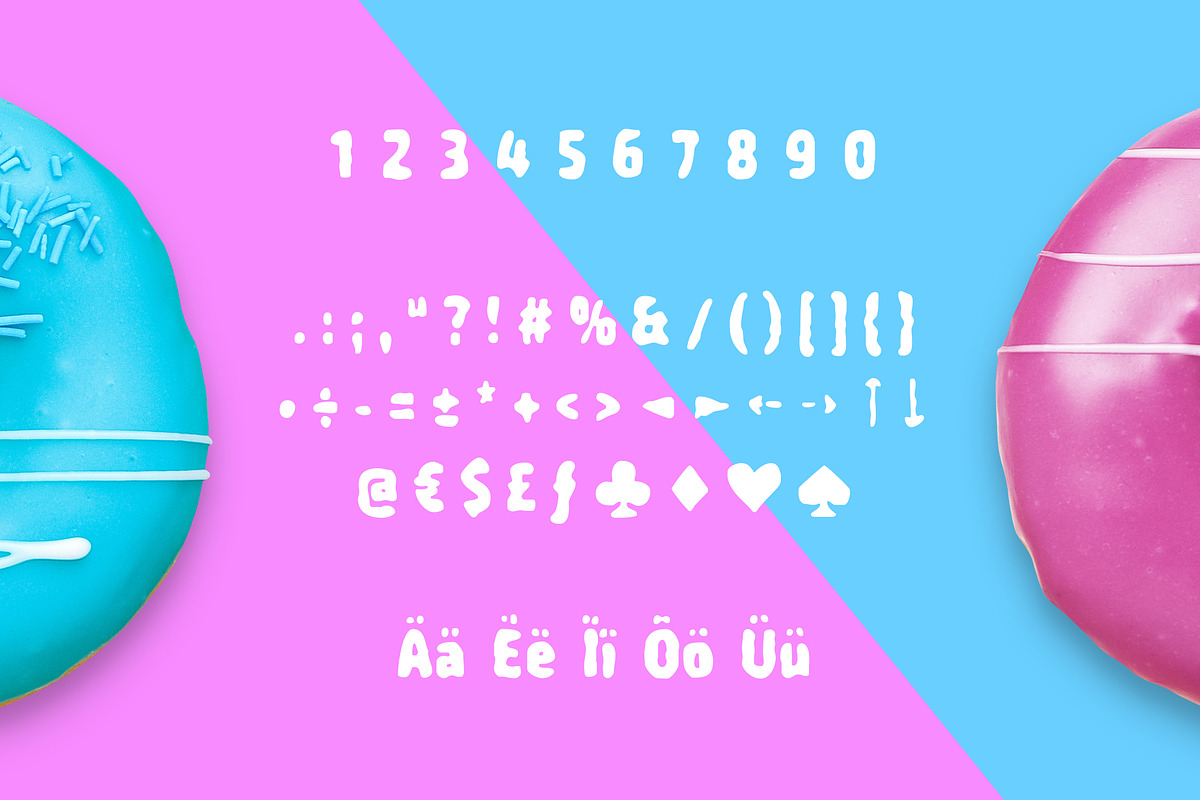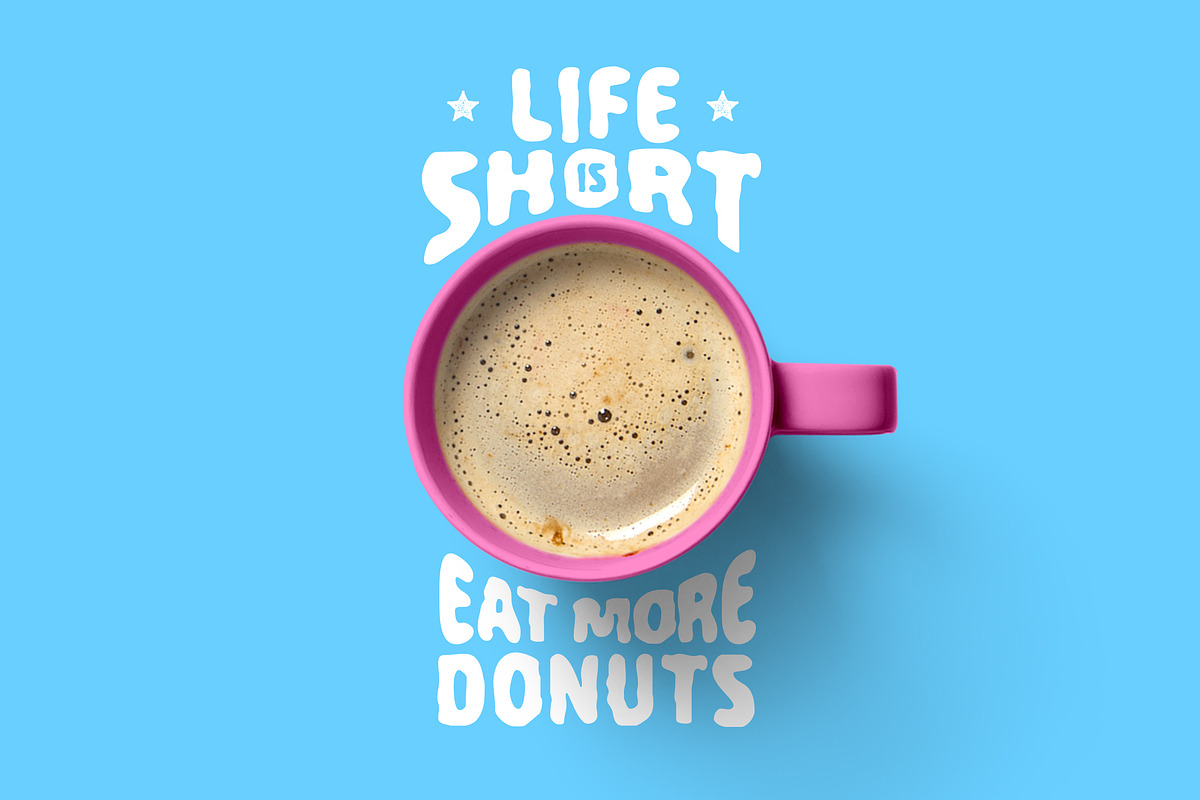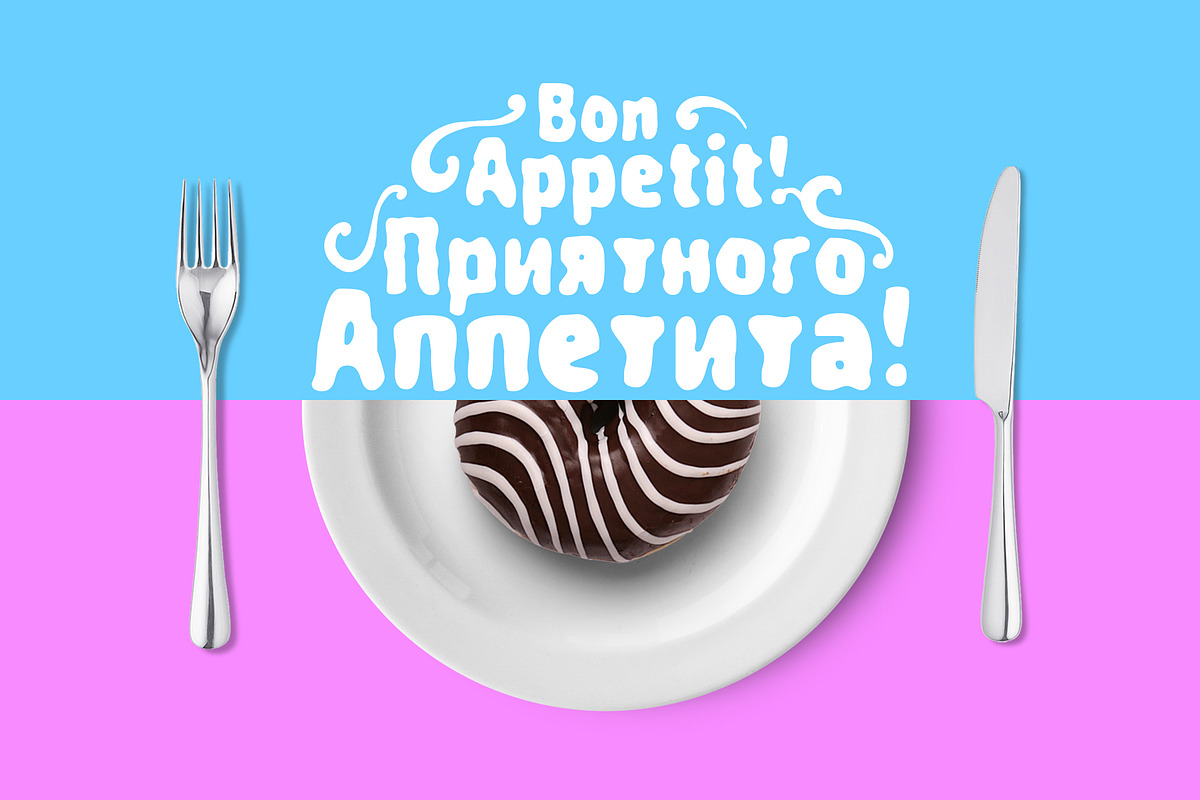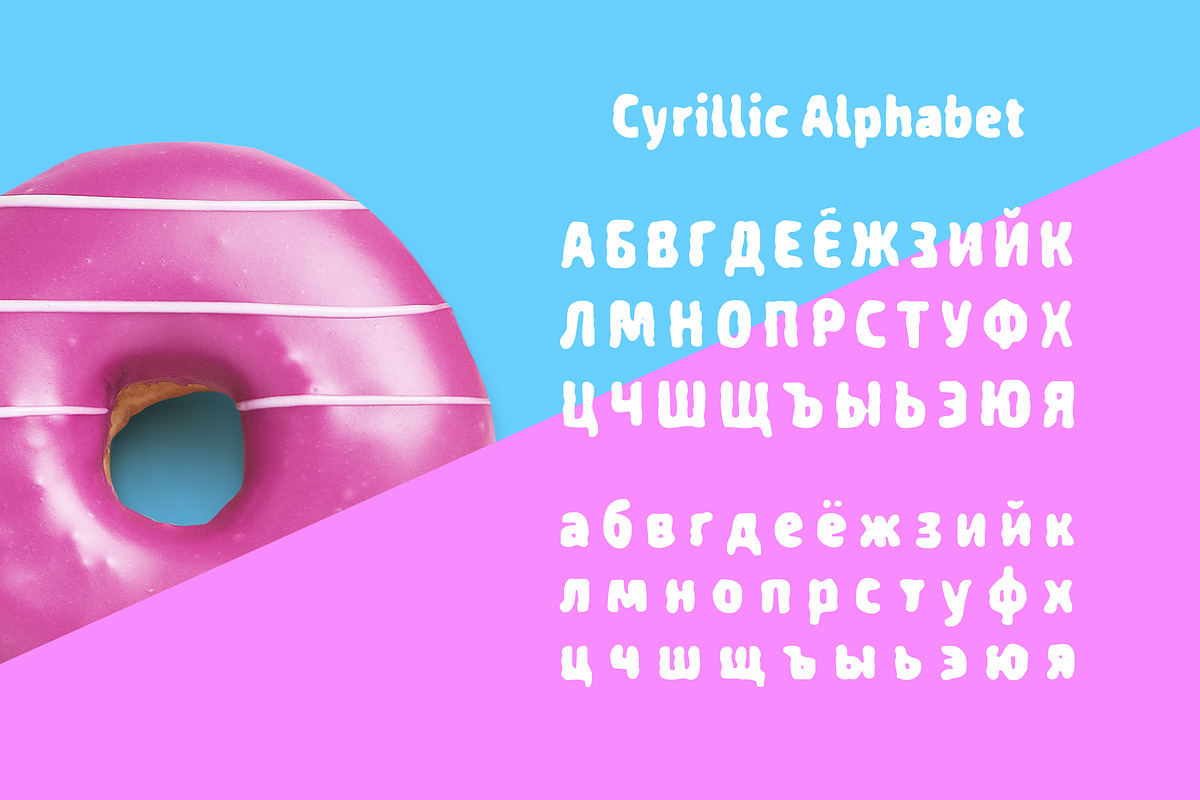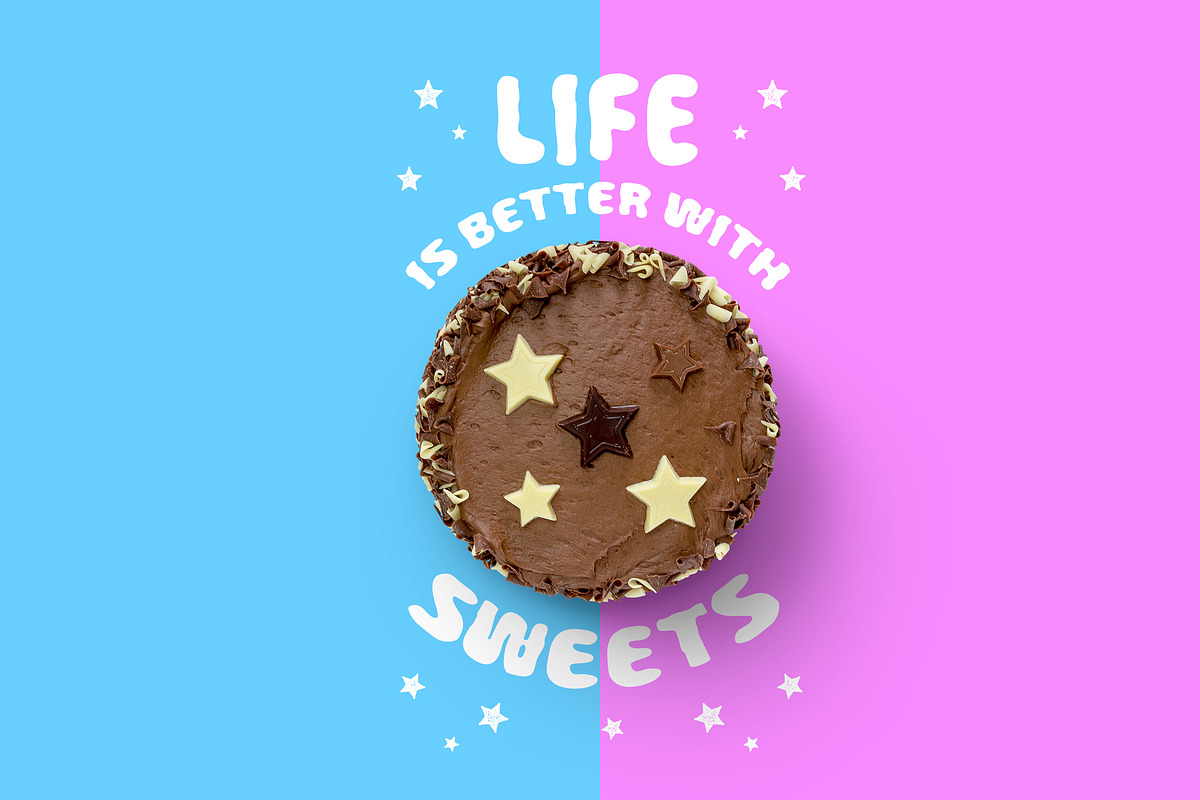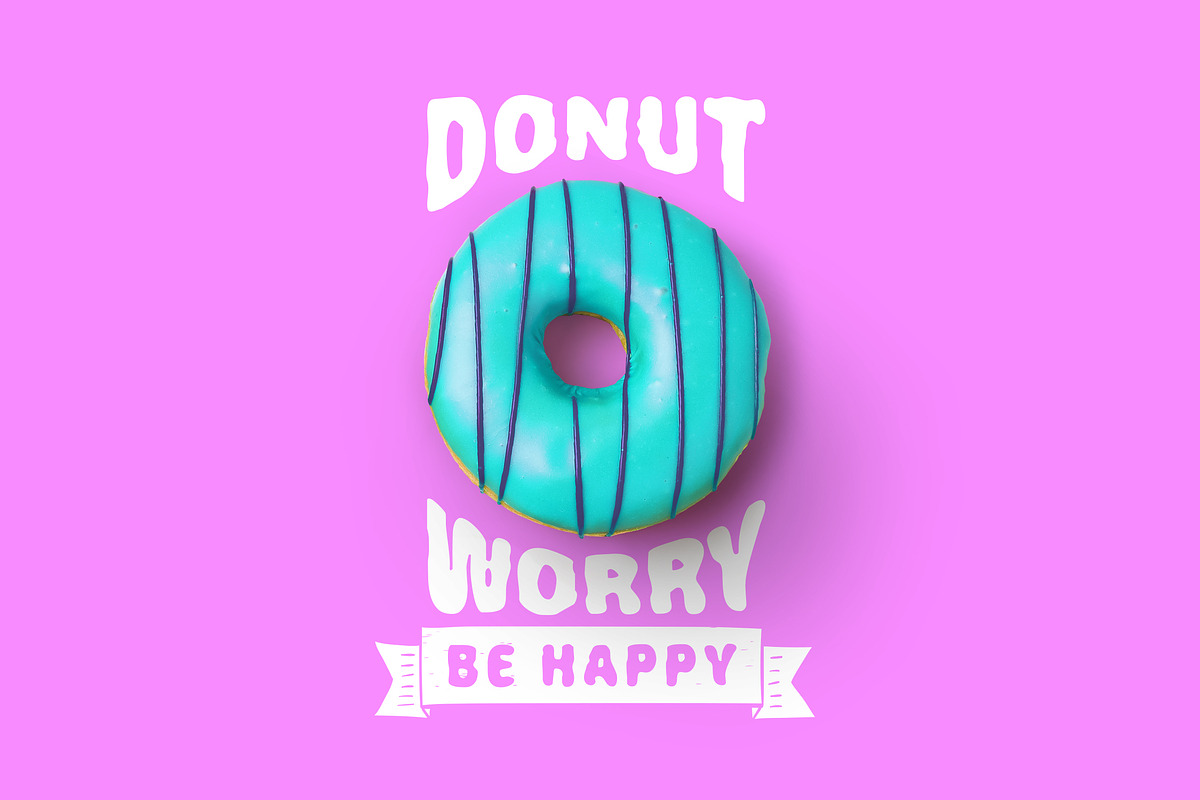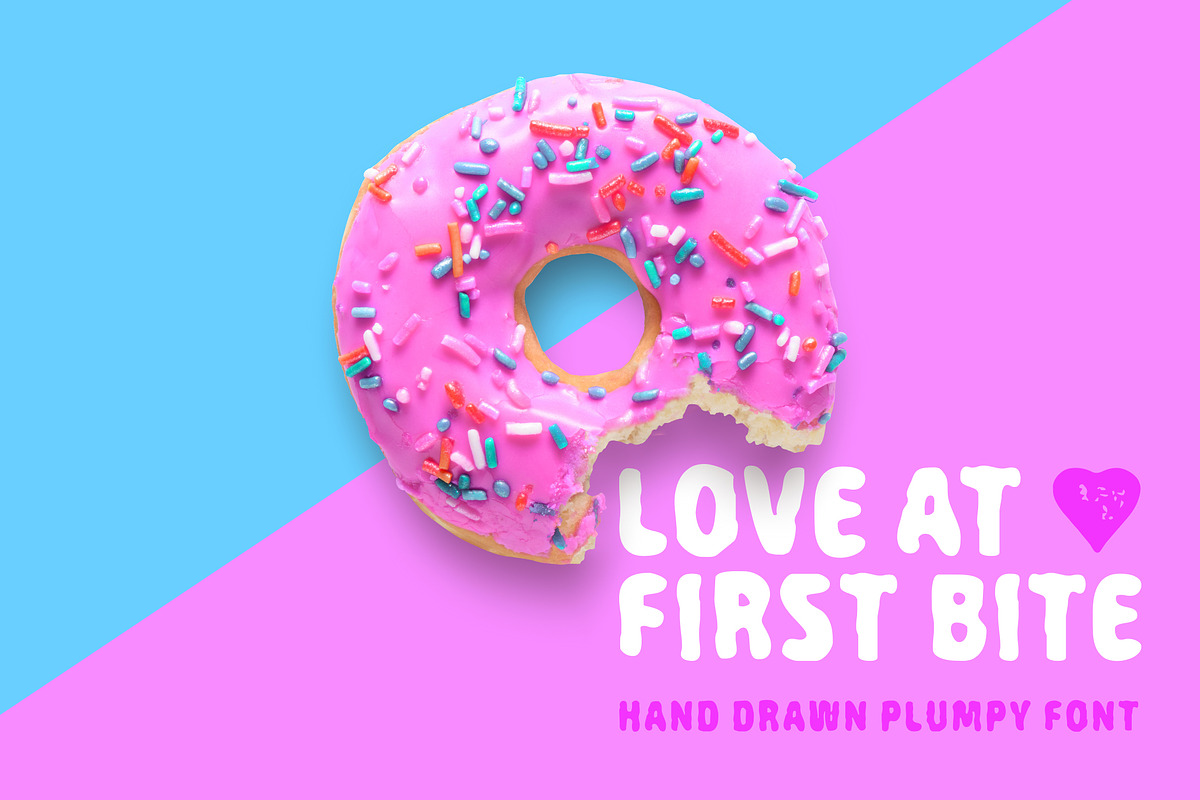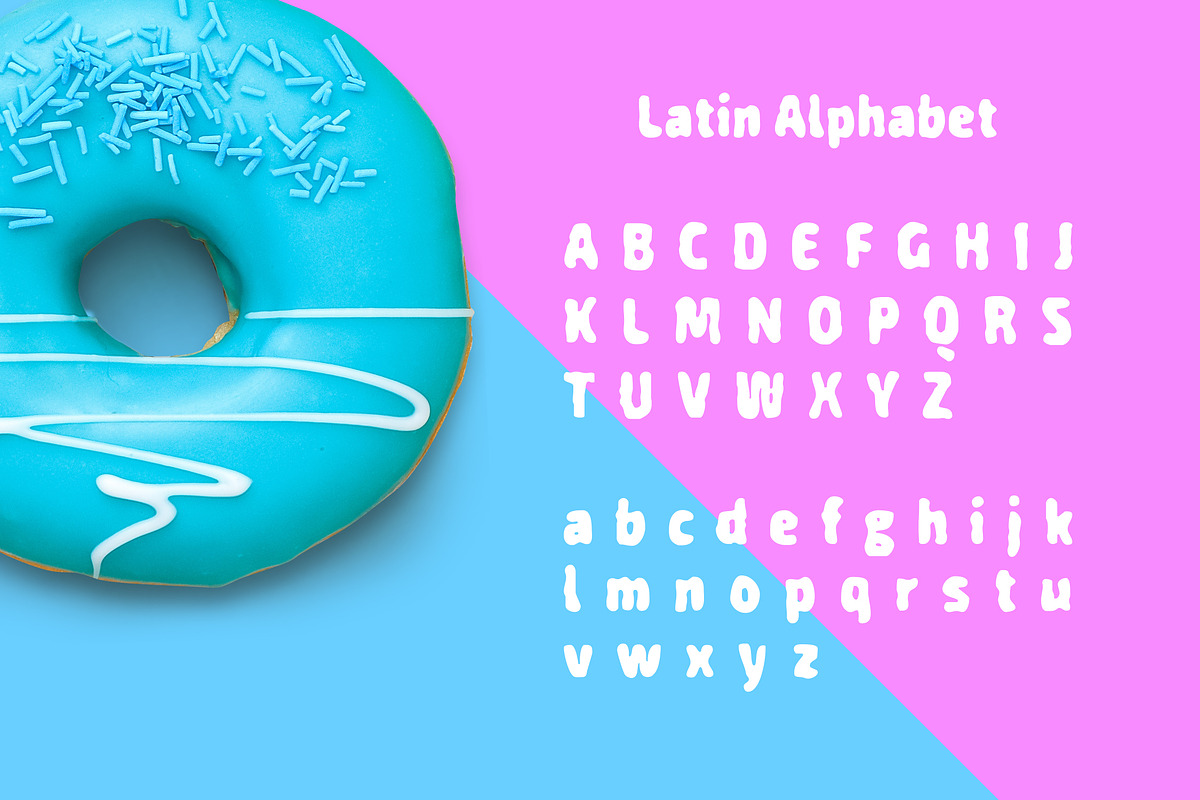
Love At First Bite. Handmade Font
Love At First Bite. Handmade Font by Cosmic Store is a font selected for branding, posters, packaging, typography.
Why Love At First Bite. Handmade Font is worth a look
Love At First Bite. Handmade Font by Cosmic Store fits naturally into Branding, posters, packaging, typography.